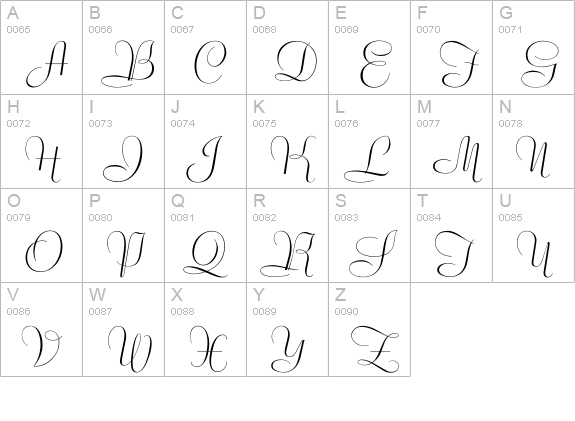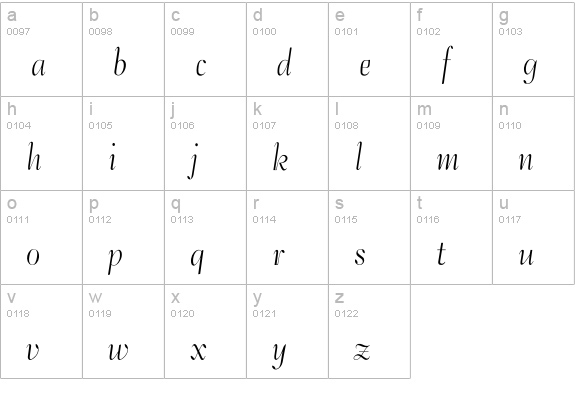
BernhardTangoSwash Font Details
BernhardTangoSwash is a beautifully designed font that exudes elegance and sophistication. With its unique swash details and graceful curves, this font adds a touch of class to any project or design. The intricate embellishments give it a timeless and luxurious feel, making it perfect for formal invitations, branding, and editorial projects. What makes BernhardTangoSwash even more appealing is that it is available for free download at FontsMarket.com. This means you can easily access this stunning font and incorporate it into your creative endeavors without any cost. Don't miss out on the opportunity to elevate your designs with the exquisite BernhardTangoSwash font - download it today and add a touch of sophistication to your work.